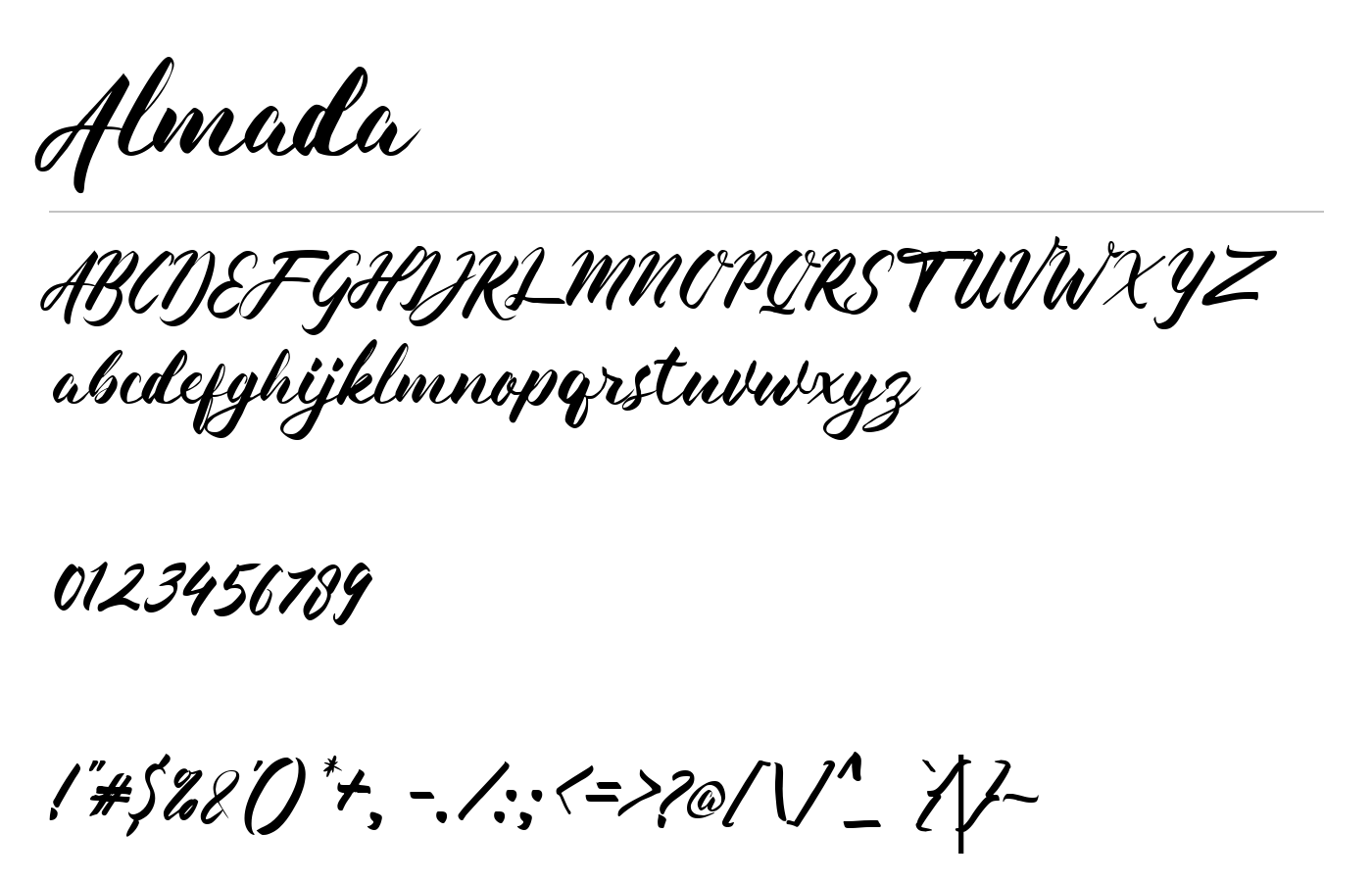
Almada is a stylish script font with a lively, handwritten feel characterized by smooth, flowing strokes and moderate contrast in line thickness. Its elegant yet casual vibe makes it perfect for branding, invitations, and creative projects where a personal, charming touch is desired. This font works especially well in headlines and logos, adding warmth and personality without sacrificing readability.
Almada Font
About Almada Font